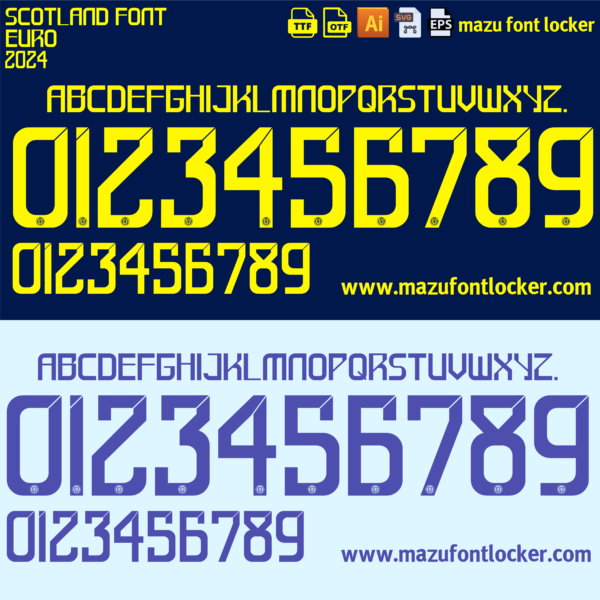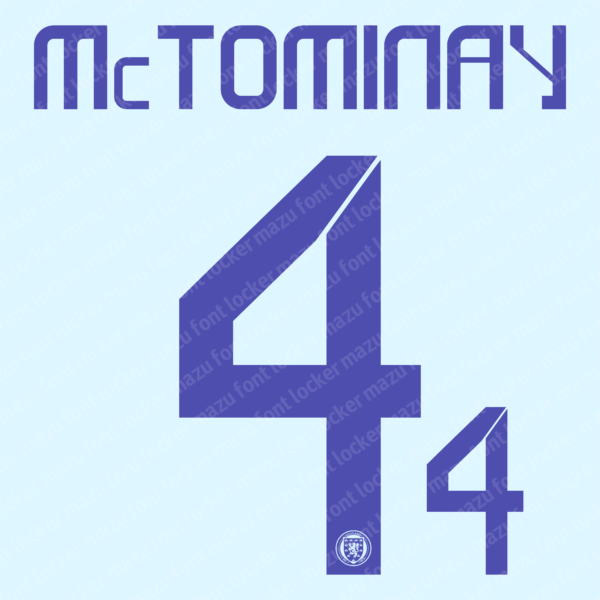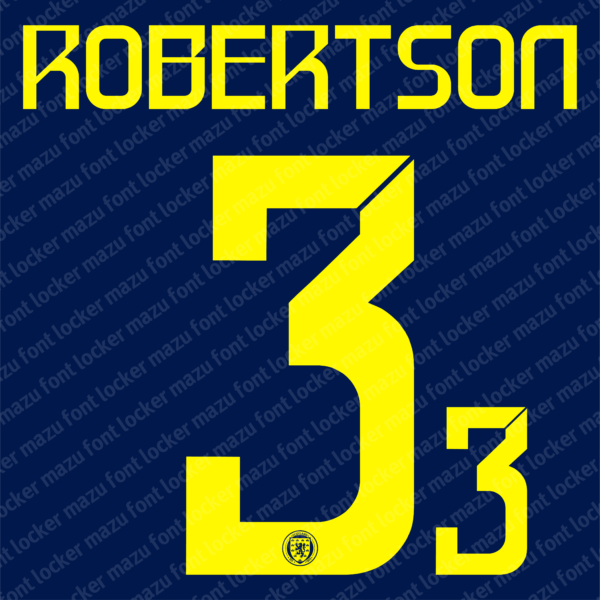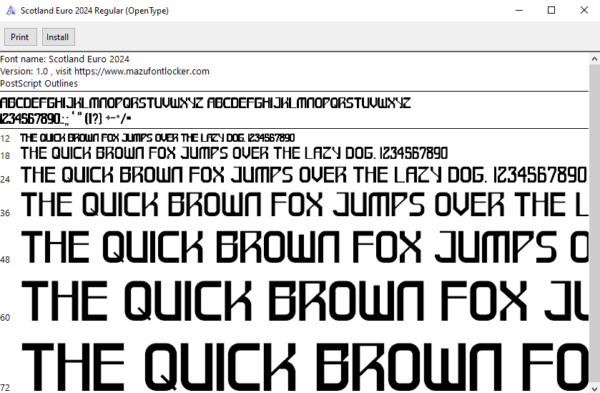
Scotland Euro 2024 font, names and numbers, fully editable VECTOR file for customisation.
Complete design with the Scotland Euro 2024 numbering and lettering for the Euro 2024 Match.